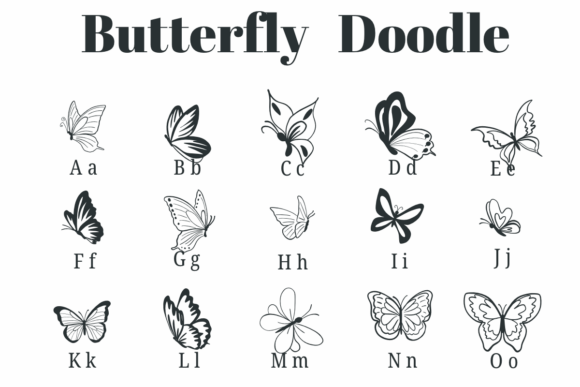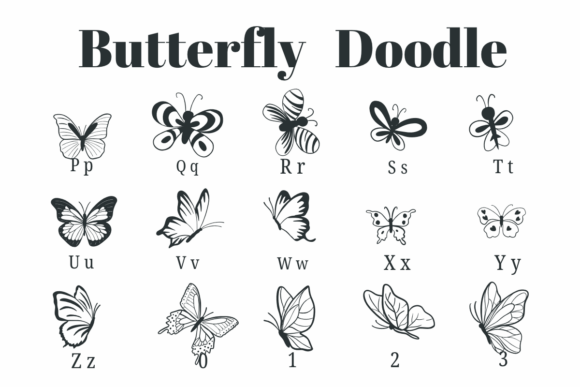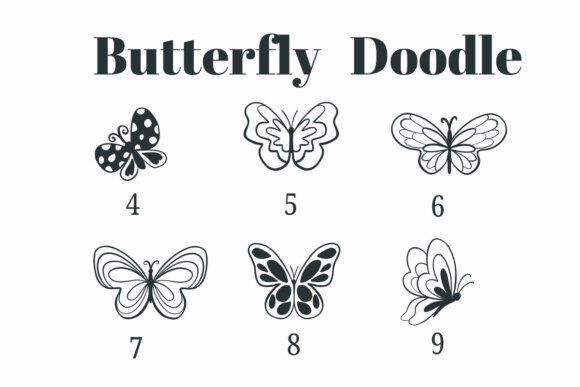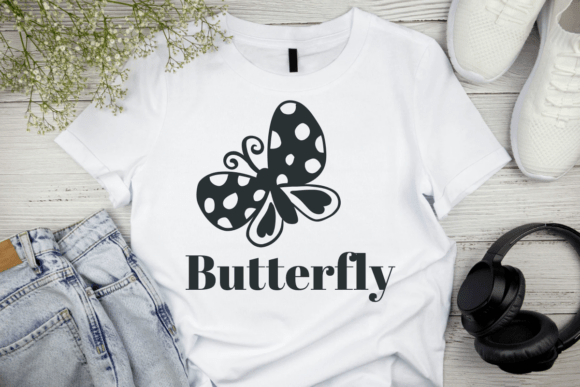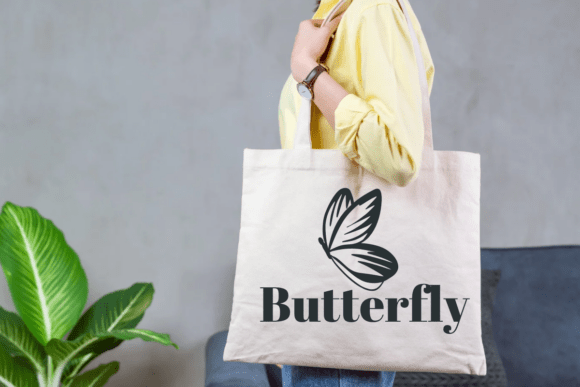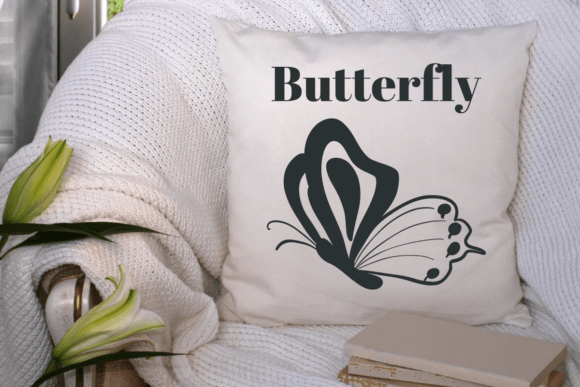
The Magic of Hand-Drawn Typography
Do you remember the feeling of excitement and freedom that comes with creating something from scratch? The thrill of combining colors, textures, and shapes to bring your imagination to life? For many of us, that moment is what drives us to be creative.
For designers and crafty enthusiasts, having the right tools can make all the difference. That’s where the Butterfly Doodle Font comes in – a beautiful dingbats font with a sketched style that adds a personal touch to any project. Whether you’re designing wedding invitations, creating DIY crafts, or developing logos, this font is sure to bring a whimsical charm to your work.
Key Features of Butterfly Doodle Font
- Unique Characteristics: The Butterfly Doodle Font features a whimsical, hand-drawn design with intricate details and flourishes, giving it a distinctive and eye-catching appearance.
- Style Options: The font includes multiple style options, including regular, bold, italic, and bold italic, allowing users to customize their text to suit different design needs.
- Scalability: The font is highly scalable, meaning it can be resized without losing its clarity or integrity, making it ideal for use in a variety of contexts, from small text to large headings.
Butterfly Doodle Font Review
First off, let’s talk about what works well. I love the whimsical, hand-drawn feel of this font ✨. It’s perfect for adding a touch of playfulness and elegance to your designs. The subtle imperfections and texture make it feel unique and handmade, which can be really appealing to clients looking for a distinctive look. The font also comes in a range of weights and styles, making it easy to adapt to different design contexts.
The font is also highly customizable, with options to adjust the color, size, and spacing. This makes it a great choice for designers who want to create custom illustrations or graphics.
⚠️ One of the main limitations of this font is its readability. While it’s perfect for headings and decorative elements, it can be challenging to read in large blocks of text. This might make it less suitable for body copy or long passages of text.
⚠️ Another limitation is the font’s complexity. While it’s great for designers who want to create custom illustrations, it can be overwhelming for those who just want to add a simple text element to their design.
Overall, I think the Butterfly Doodle Font is a great choice for designers who want to add a touch of whimsy and elegance to their work. While it may have some limitations, it’s a versatile and customizable font that can be used in a range of design contexts.
- Whimsical, hand-drawn feel
- Range of weights and styles
- Perfect for headings and decorative elements
The Butterfly Doodle Font is perfect for creating whimsical and playful designs, such as children’s party invitations, greeting cards, and social media graphics. It’s also great for adding a touch of personality to business logos and branding materials.
What is the minimum font size recommendation for the Butterfly Doodle Font?
For optimal readability and visual impact, we recommend using the Butterfly Doodle Font at a minimum size of 14pt (or 10pt for body text). This will ensure that the intricate details and doodle-like elements remain legible and visually appealing, even at smaller font sizes.